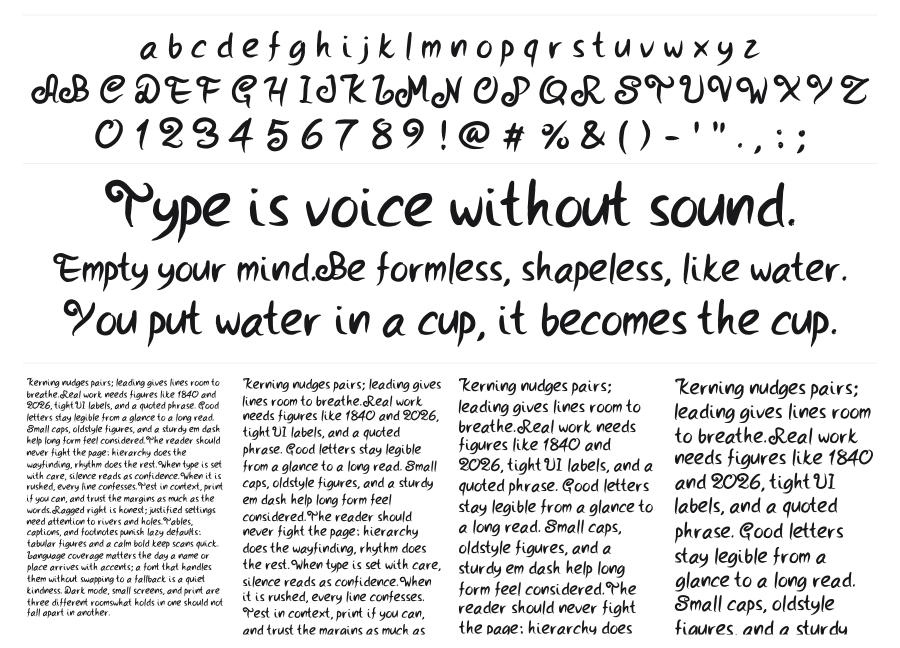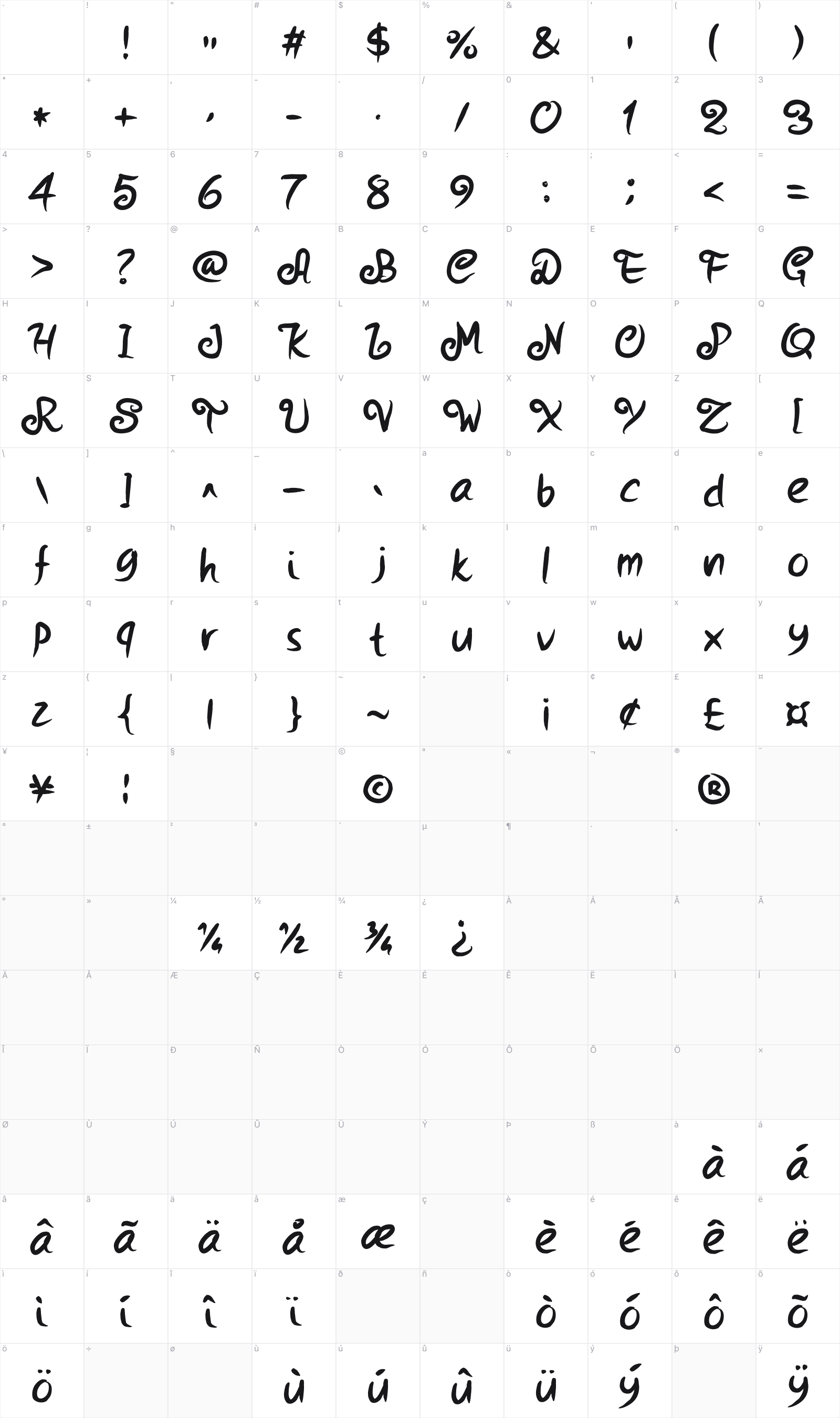
PW Strokes
PW Strokes is a bold, casual handwritten face from Peax Webdesign with thick, slightly uneven strokes that give it a loose, playful energy. The letterforms feel spontaneous and a little quirky, like someone grabbed a wide brush and just went for it. Best at headline sizes for informal branding, social media graphics, or anything that needs to feel fun and off-the-cuff.